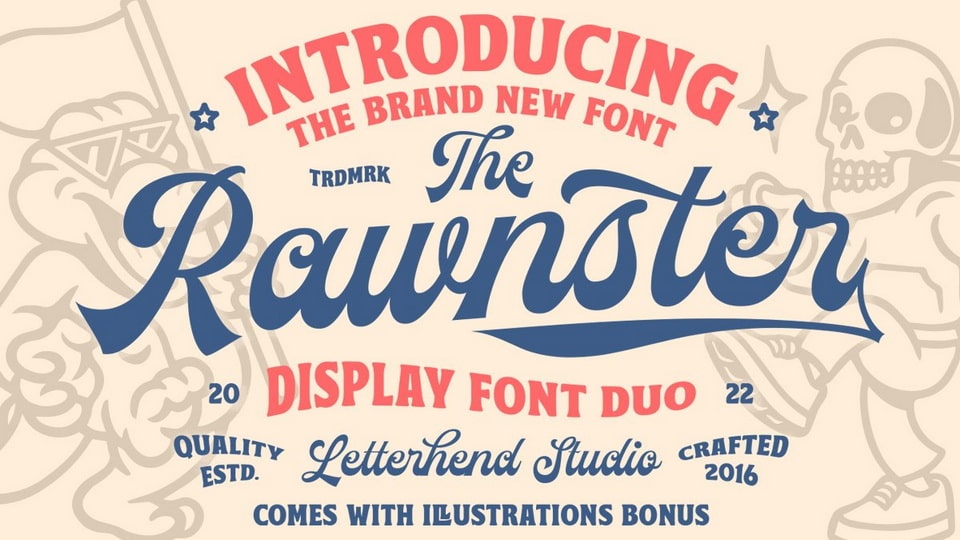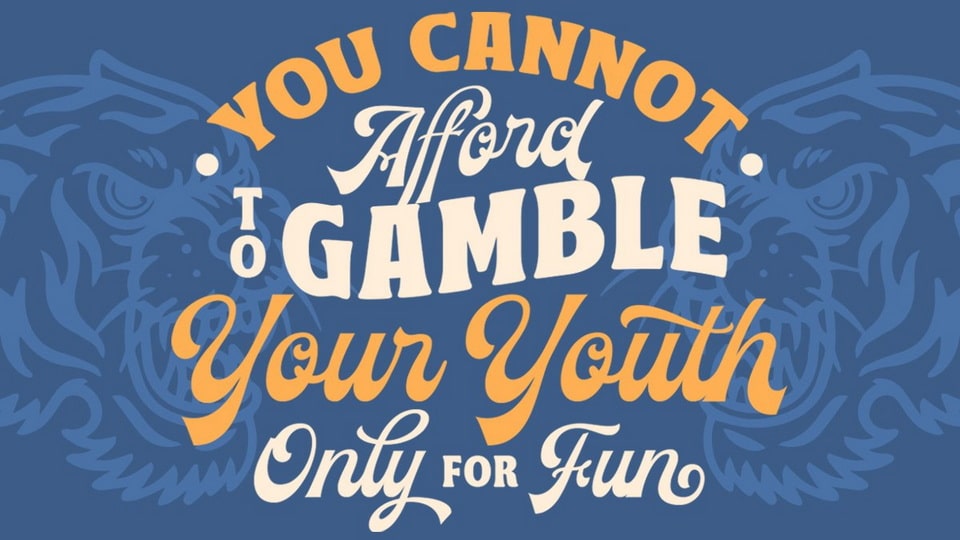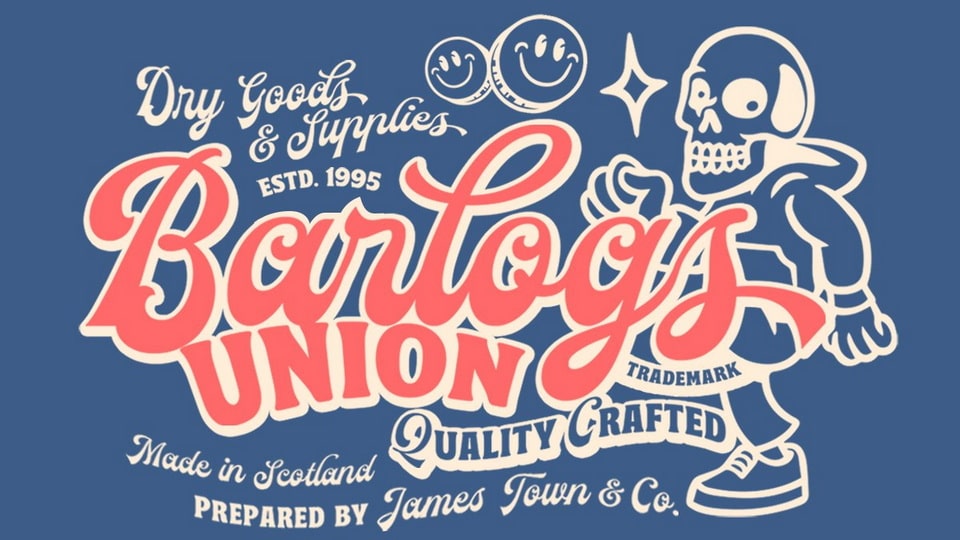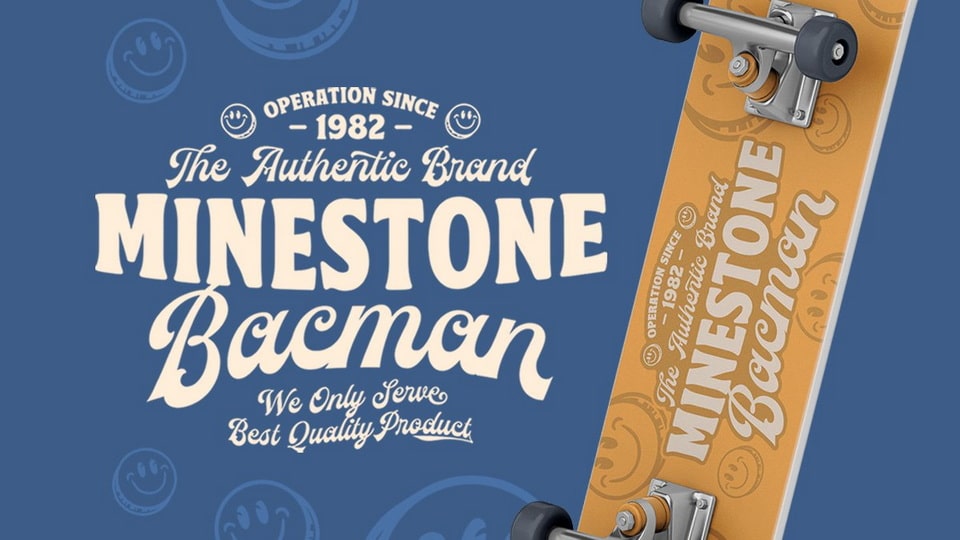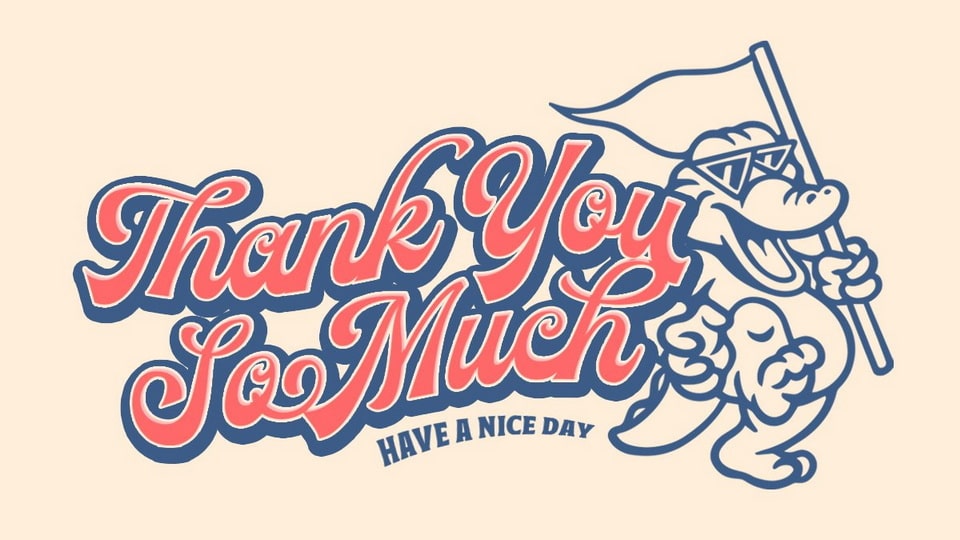
The Rawnster Font Duo
The Rawnster is a pair of display fonts with a touch of vintage look and feel.
The Rawnster fonts are also perfectly made to be applied especially in logo, headline, signage, labels, magazines, books, packaging, fashion or any type of advertising purpose.